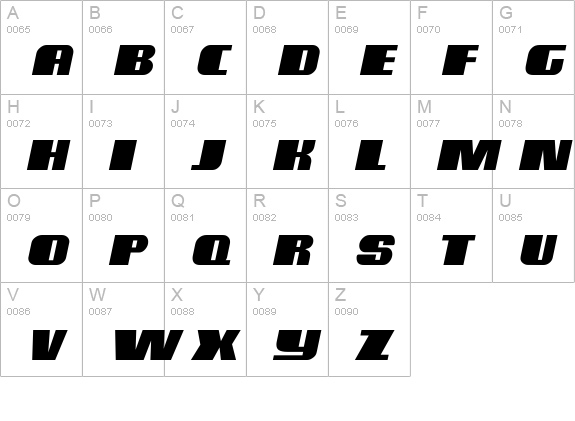
BlutussCaps Italic Font Details
BlutussCaps Italic is a distinctive, italic variant in the BlutussCaps typeface family \xE2\x80\x94 well suited to design and typography projects.
BlutussCaps Italic font is a stunning display typeface that exudes elegance and sophistication. Its sleek and modern design makes it perfect for adding a touch of class to any project. The italicized caps give a sense of movement and style, making your text stand out beautifully. And the best part? BlutussCaps Italic font is available for free download at FontsMarket.com! This means you can elevate your designs without breaking the bank. Don't miss out on this fantastic opportunity to enhance your projects with this gorgeous font. Download BlutussCaps Italic today and take your design game to the next level!